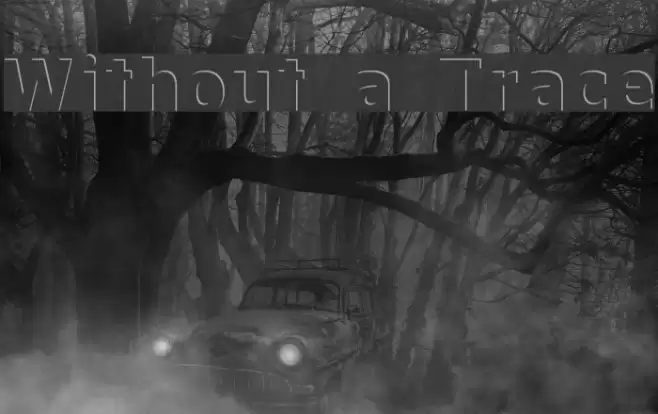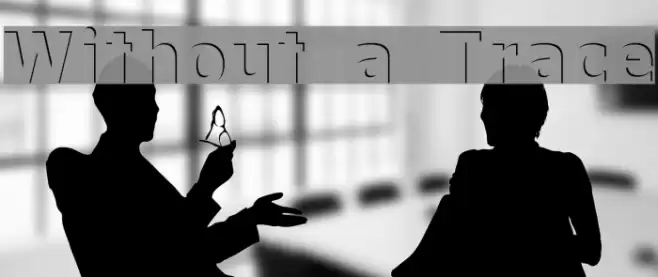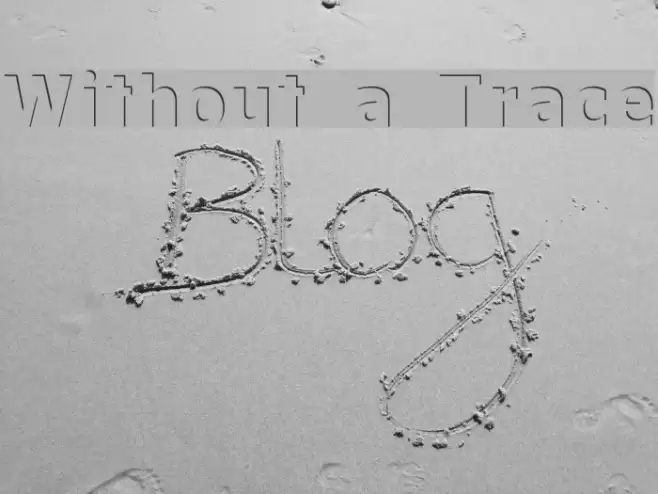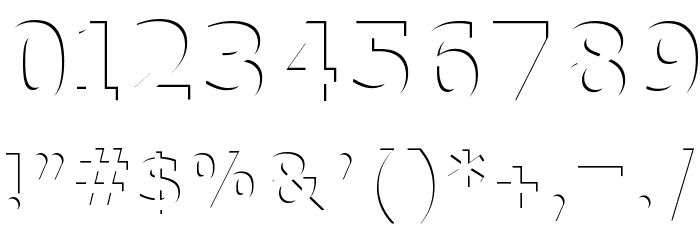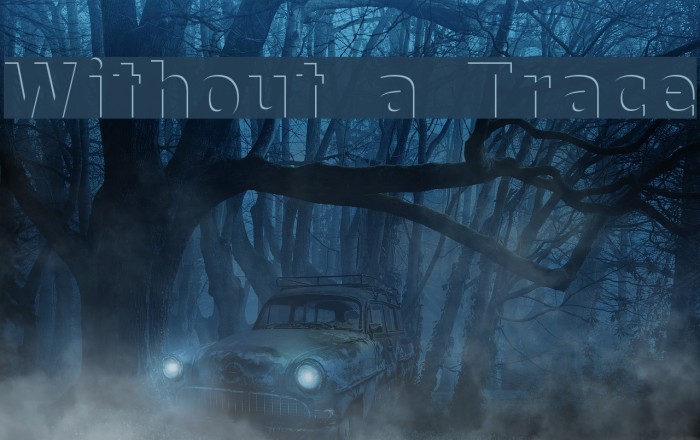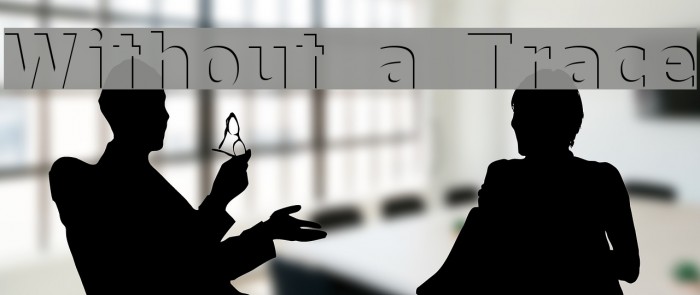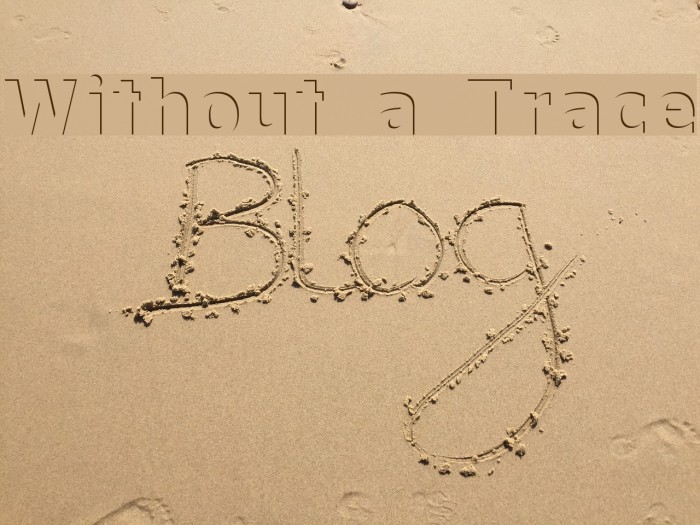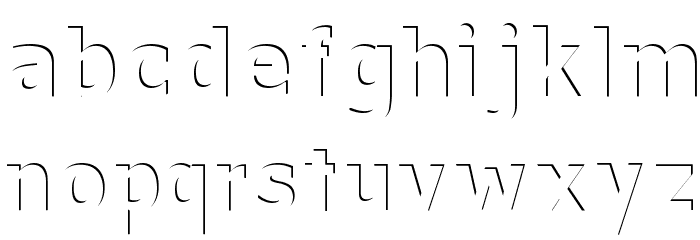
Without a Trace Font
Without a Trace Description
This font features a modern and minimalist design with a stencil-like appearance. The characters are constructed with clean, geometric lines and strategic cutouts, giving it a unique and contemporary look. The uppercase and lowercase letters maintain a consistent style, with a focus on simplicity and readability. The numerals and special characters follow the same design principles, ensuring a cohesive appearance across all elements. This font's distinct style makes it suitable for creative and artistic projects where a modern and edgy aesthetic is desired.
A modern, stencil-like font with geometric lines and strategic cutouts from Uncategorized fonts.
- Proposed Projects: Ideal for branding, posters, packaging, and digital media where a modern and artistic touch is needed.